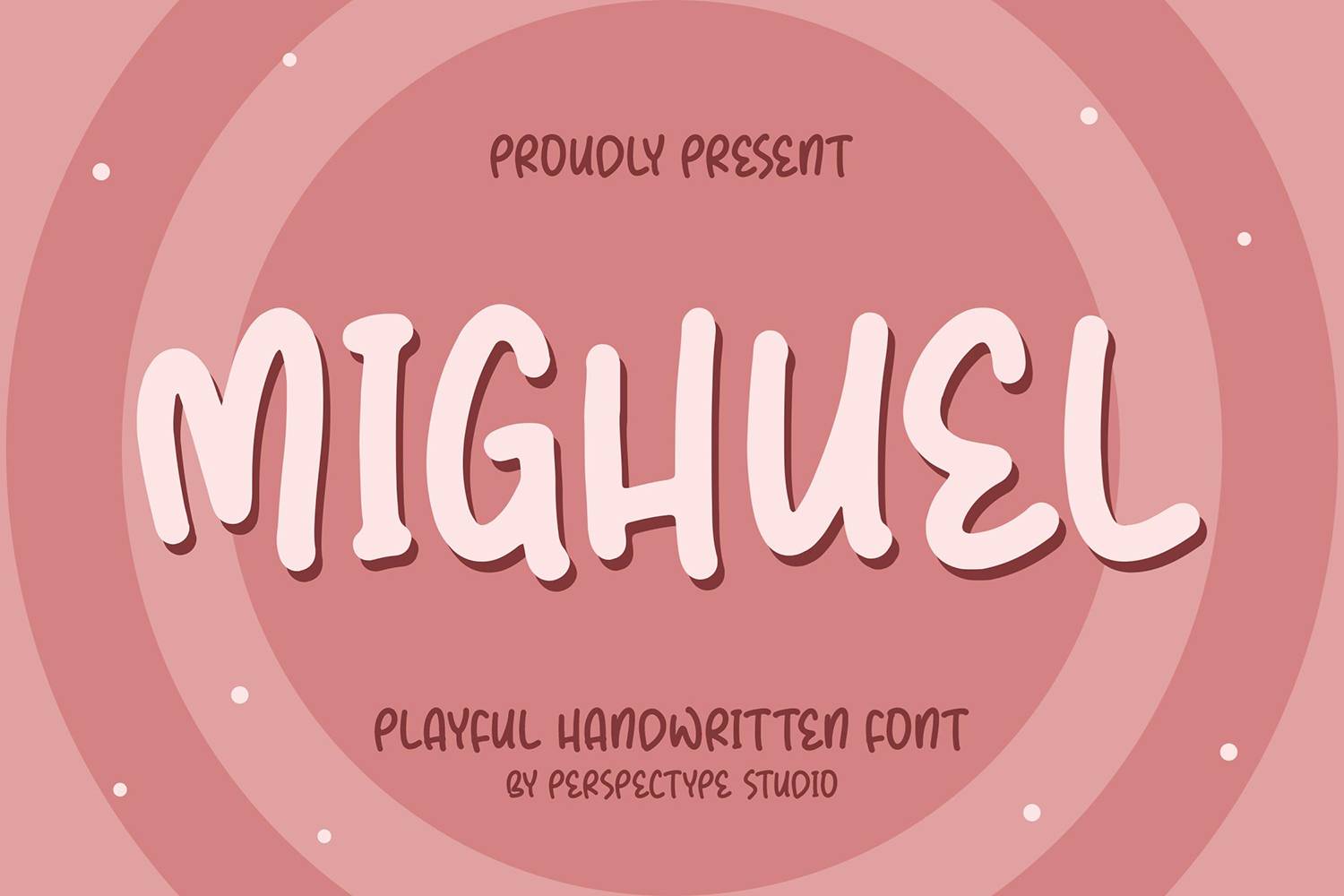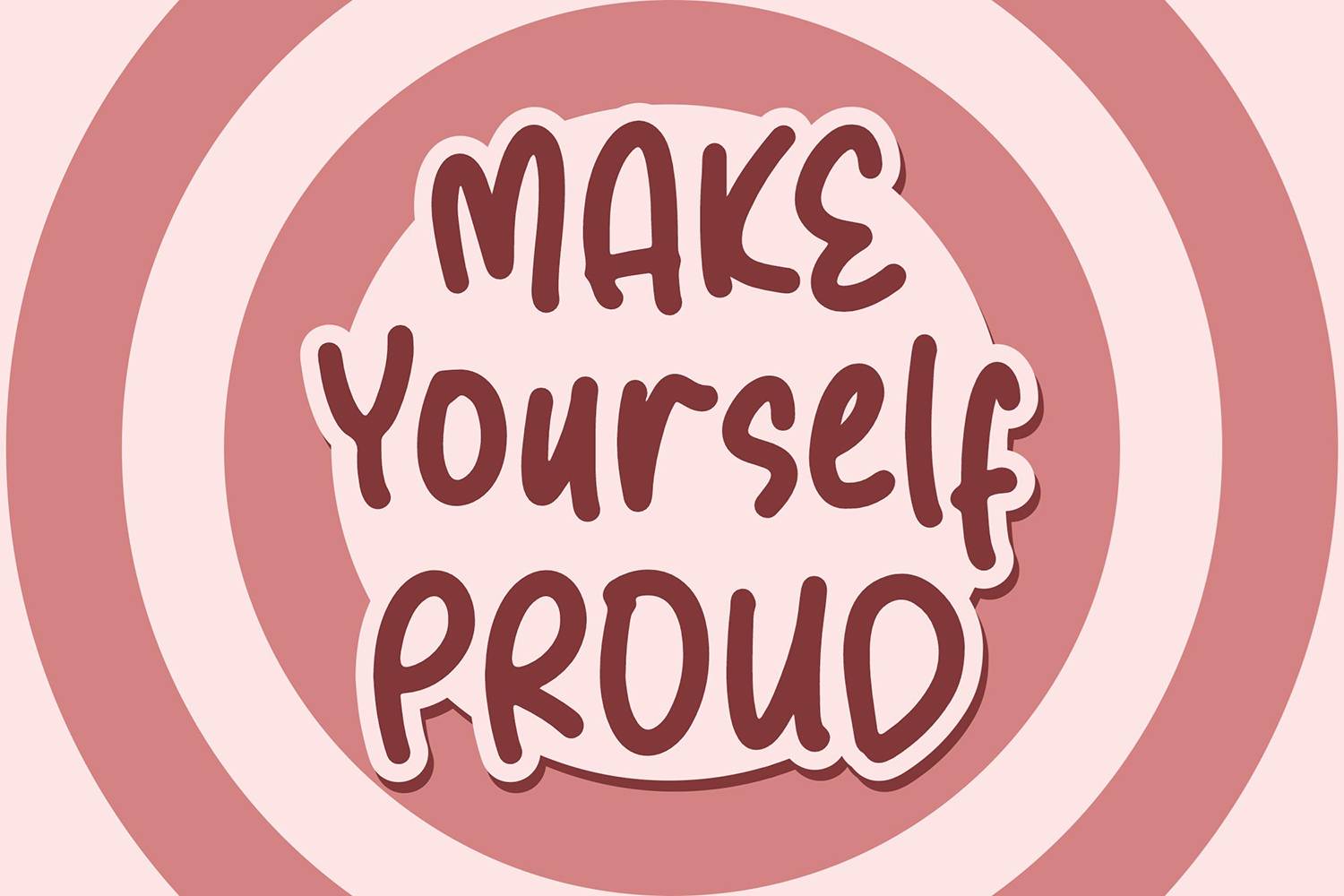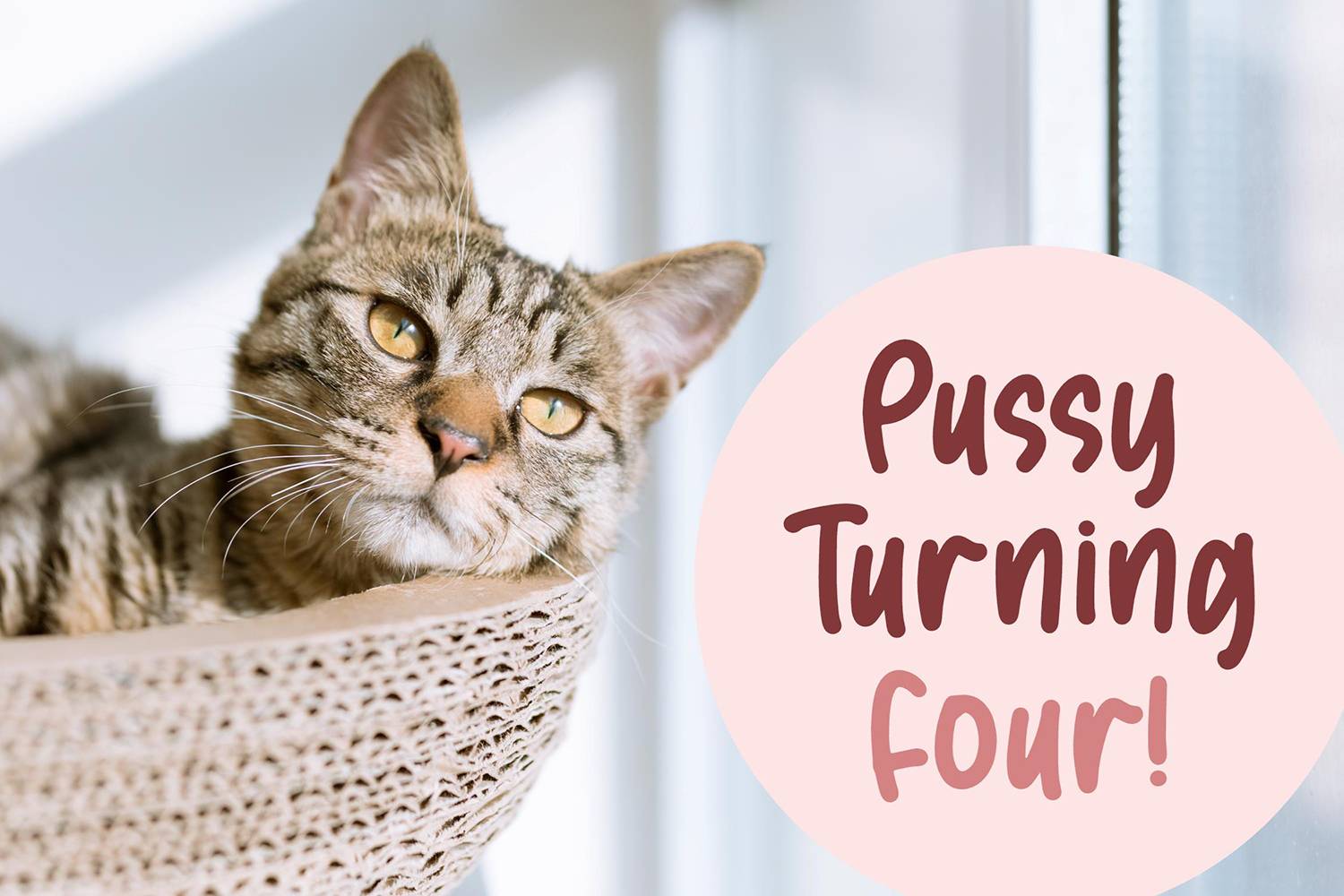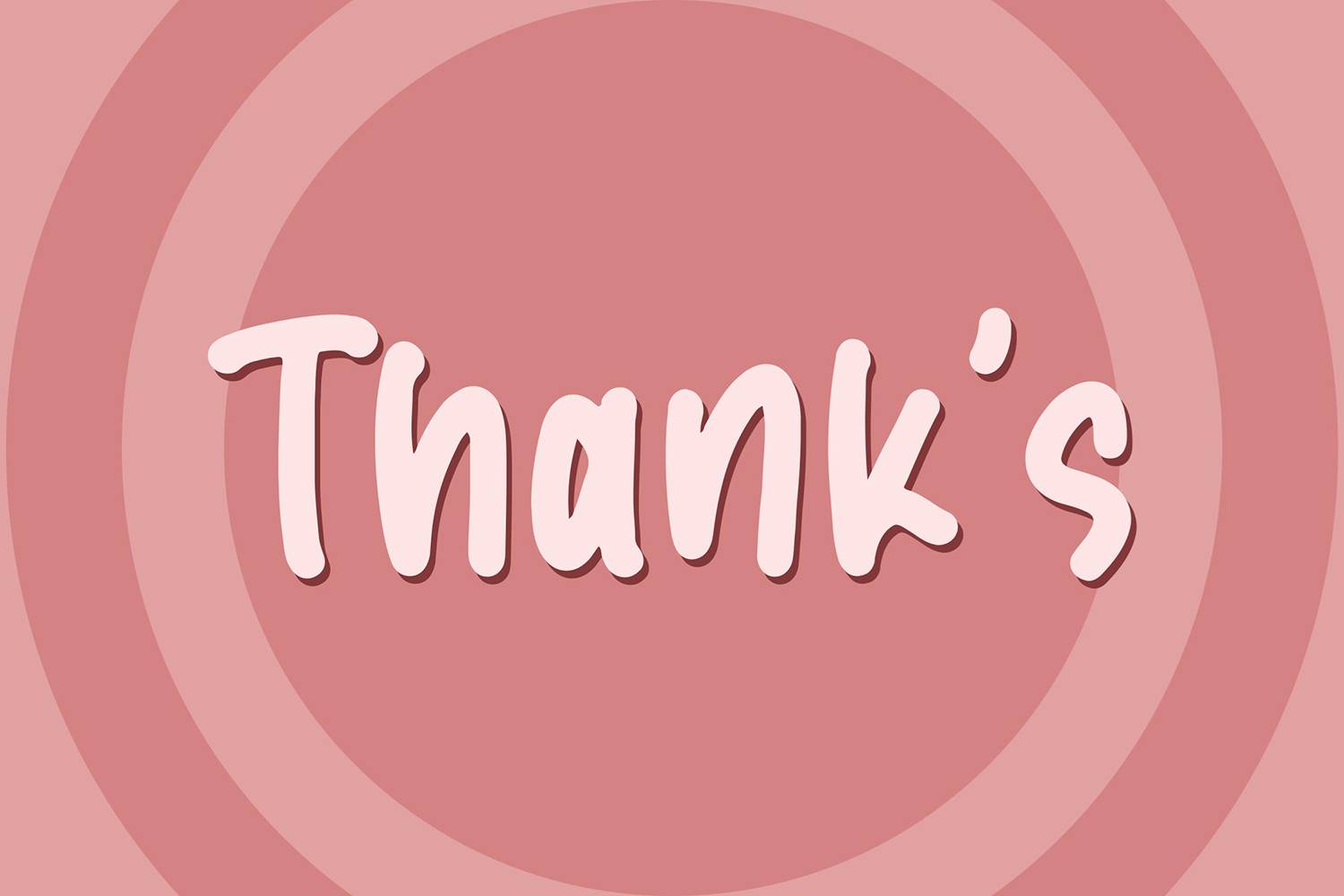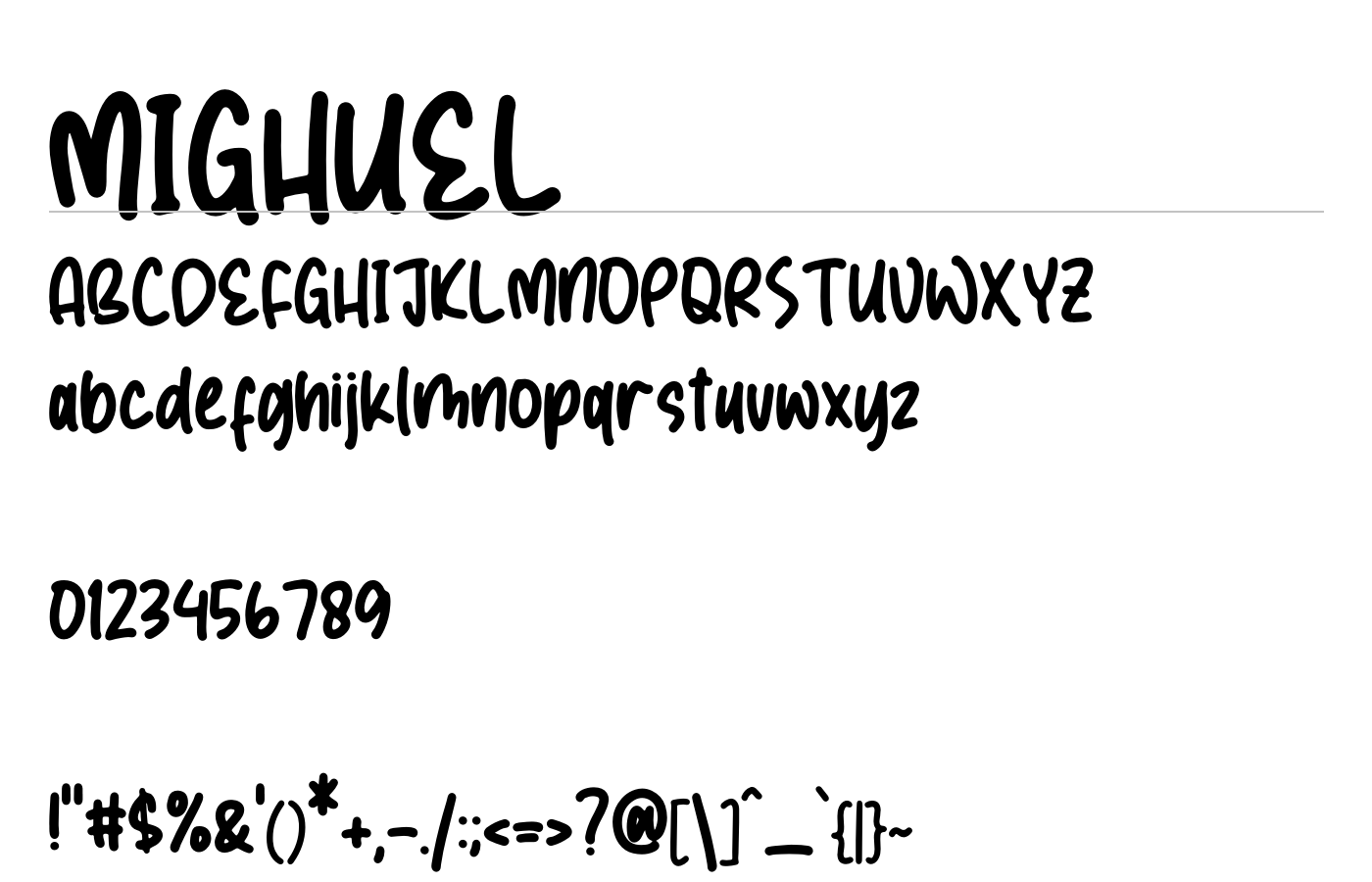
Mighuel is a playful, hand-drawn sans serif font with a casual and friendly vibe. Its slightly irregular, rounded letterforms and moderate weight create a warm, approachable feel that works well for informal branding, invitations, and creative projects. This font is ideal for designs seeking a personal touch and lively personality without sacrificing readability.
Mighuel Font
About Mighuel Font